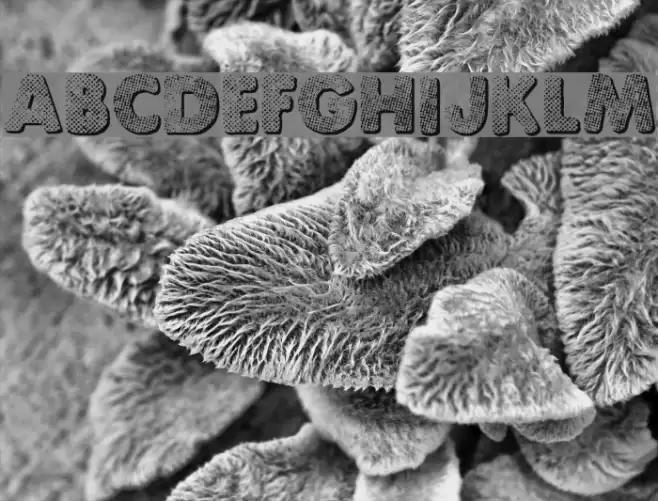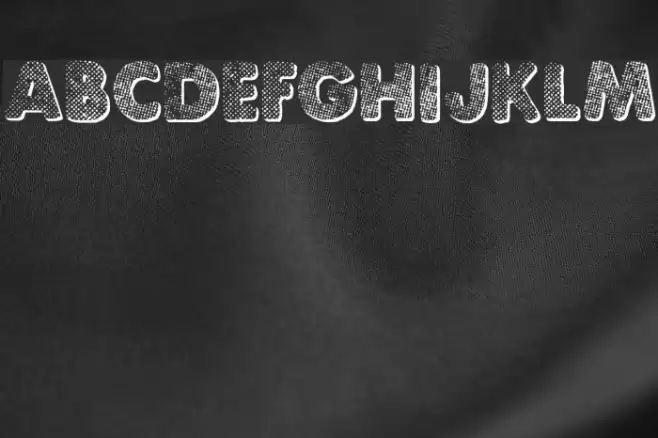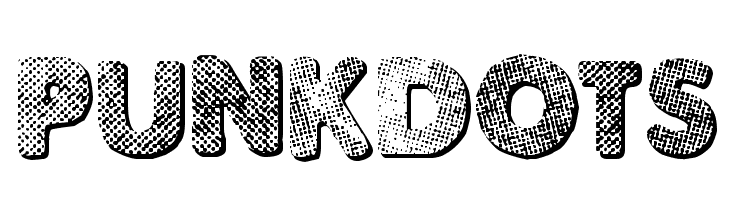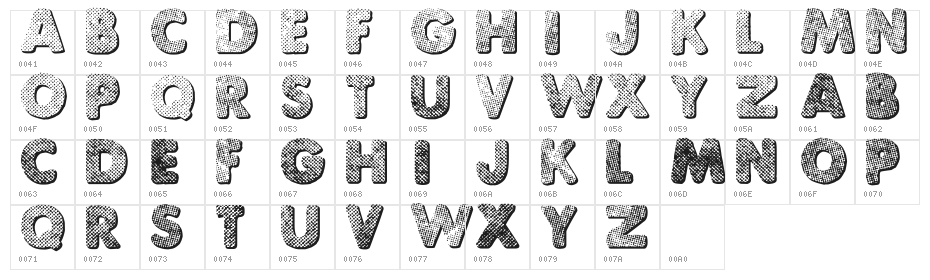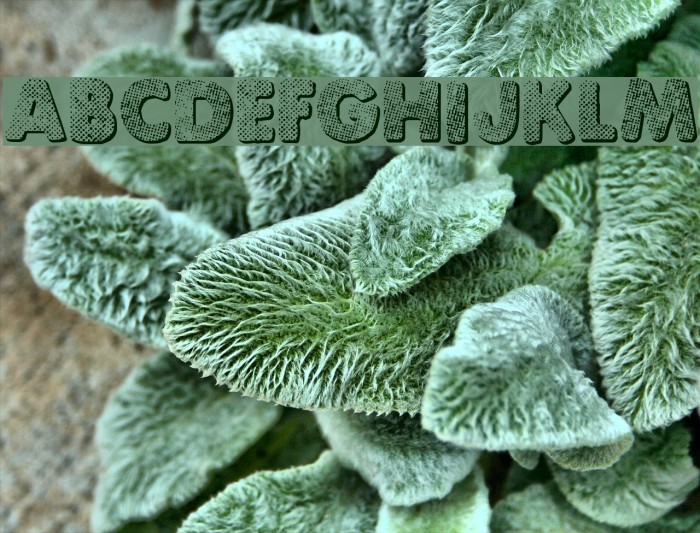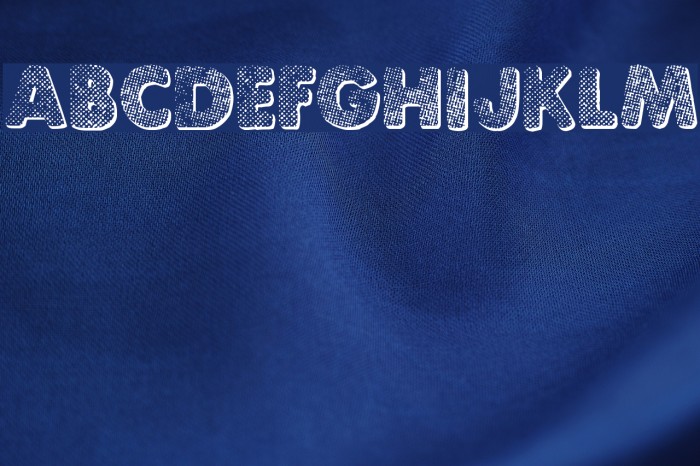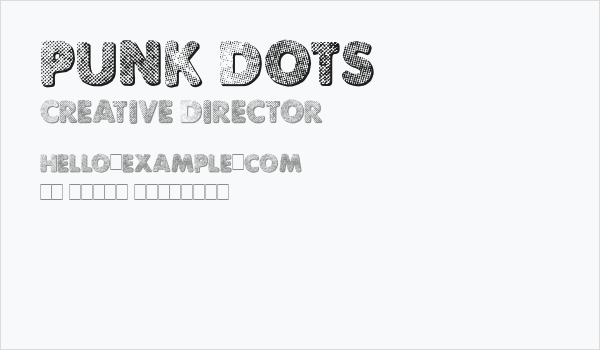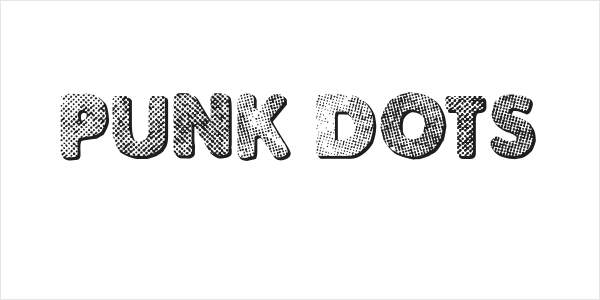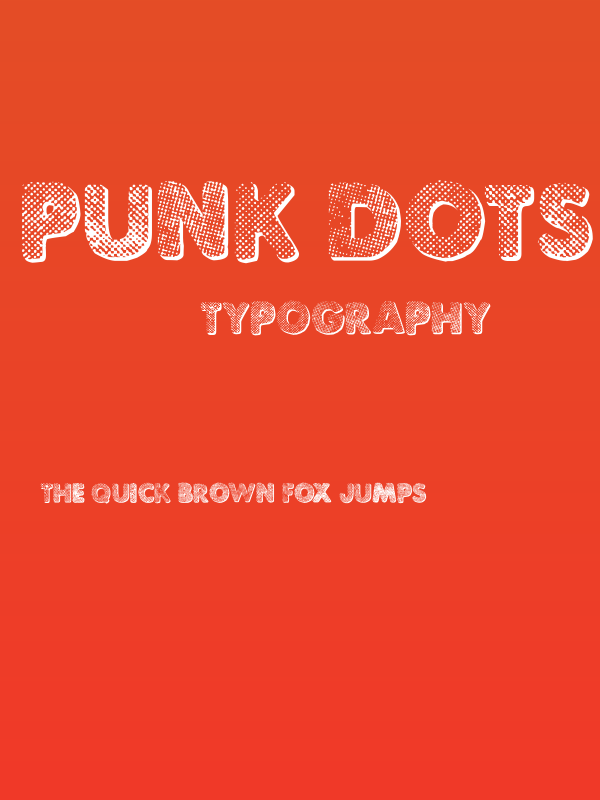
Punk Dots Font
Punk Dots Description
This font features a bold, playful style with a unique dotted texture that gives each character a punk-inspired aesthetic. The uppercase letters are prominent and eye-catching, making them ideal for designs that require a strong visual impact. The dotted pattern adds a layer of complexity and interest, reminiscent of pop art or comic book styles. The characters are evenly spaced, ensuring readability while maintaining a distinct and edgy appearance. This font is perfect for projects that aim to capture a youthful, rebellious spirit, such as music album covers, posters, or fashion branding.
A bold, dotted font with a punk-inspired, playful style from Uncategorized fonts.
- Proposed Projects: Ideal for music album covers, posters, fashion branding, and any project needing a youthful, rebellious touch.
- Overall Style: Punk, Playful, Edgy